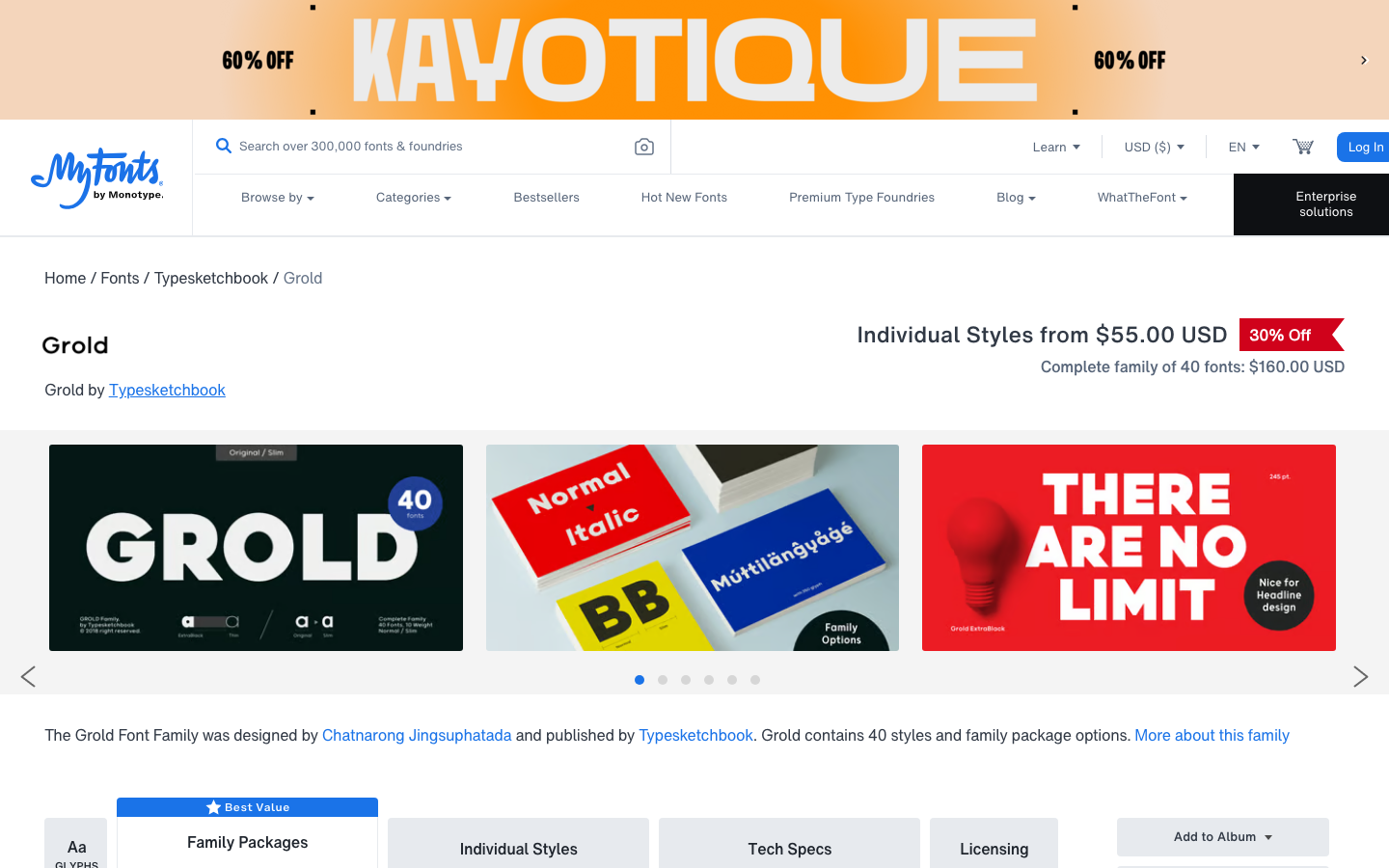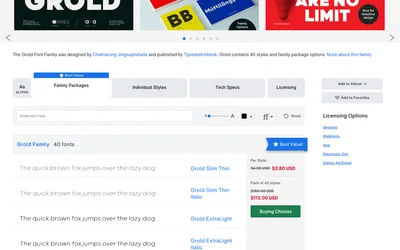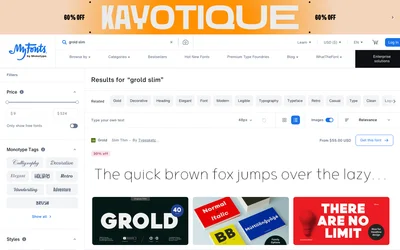
About Grold Slim
- Foundry
- Typesketchbook
- Classification
- sans-serif
- Style
- geometric
Grold Slim is the condensed-width variant within the Grold typeface system designed by Chatnarong Jingsuphatada and published by Typesketchbook. The Slim variant narrows the proportions of the base Grold design, providing a space-efficient option that maintains the family's post-geometric character in a more compact form.
History and Design
The Grold family was designed as a comprehensive type system with multiple width variants — Standard, Slim, Rounded, and Extended — each providing different proportional characters while sharing underlying design DNA. Grold Slim represents the condensed width, offering designers a narrower option that fits more text per line while retaining the geometric foundation of the parent design.
The post-geometric classification reflects Grold Slim's approach: it starts from geometric principles but introduces subtle humanist refinements that improve text readability. This balance makes it versatile enough to function as both a display face and a workable text face at moderate sizes.
Technical Characteristics
- Condensed proportions: Narrower than the standard Grold for space-efficient setting
- Post-geometric construction: Geometric foundation with humanist readability refinements
- Twenty styles: Ten weights from Thin to ExtraBlack, each with italic
- Part of a system: Compatible with Grold Standard, Rounded, and Extended widths
- Modern proportions: Contemporary x-height and spacing for digital contexts
Use Cases
Grold Slim serves contexts where space efficiency meets modern aesthetics:
- Editorial typography: Condensed text face for narrow columns and data-dense layouts
- Brand identity: Sleek, modern sans-serif for contemporary brand systems
- Digital product design: Space-efficient type for interface labels and navigation
- Marketing materials: Clean condensed type for brochures and presentations
- Infographics and data visualization: Compact labeling for charts and diagrams